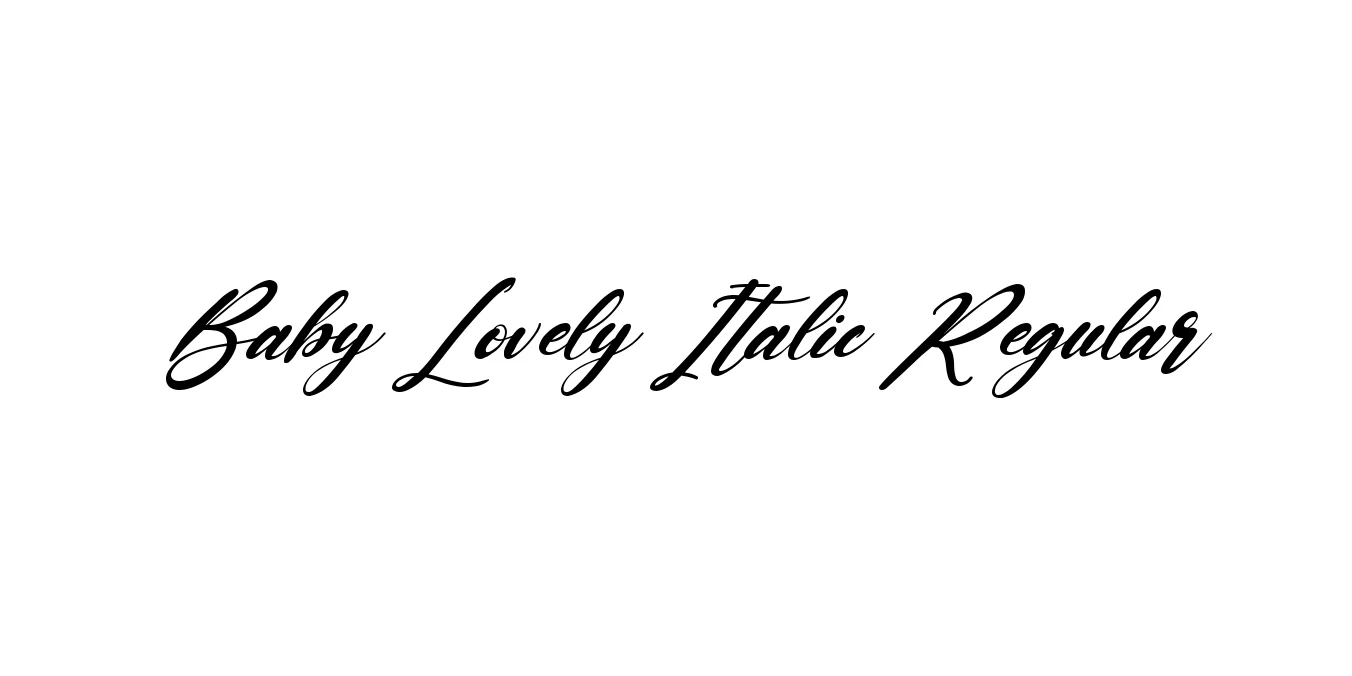
Baby Lovely Italic Regular
Designed by Creatype Studio
Baby Lovely Italic Regular is a charming and whimsical script font that captures the essence of handwritten elegance. Designed by Creatype Studio, this typeface features flowing curves and a natural rhythm that makes it perfect for adding a personal touch to any creative project. Its delicate weight and rhythmic slant evoke a sense of warmth and playfulness, making it a popular choice for romantic and child-oriented designs.
This font is highly versatile, offering a wide range of ligatures and stylistic alternates that allow for a custom, hand-lettered look. Whether used in branding, social media graphics, or wedding invitations, Baby Lovely Italic Regular maintains high legibility while providing an artistic flair. It is particularly effective when used for feminine branding and product packaging where a soft, approachable aesthetic is desired.
Baby Lovely Italic Regular Best Uses
Perfect for creating elegant and romantic invites with a personal touch.
Ideal for logos in the beauty, fashion, and lifestyle industries.
Great for eye-catching quotes and engaging digital content.
Adds a heartfelt and artisanal feel to custom card designs.